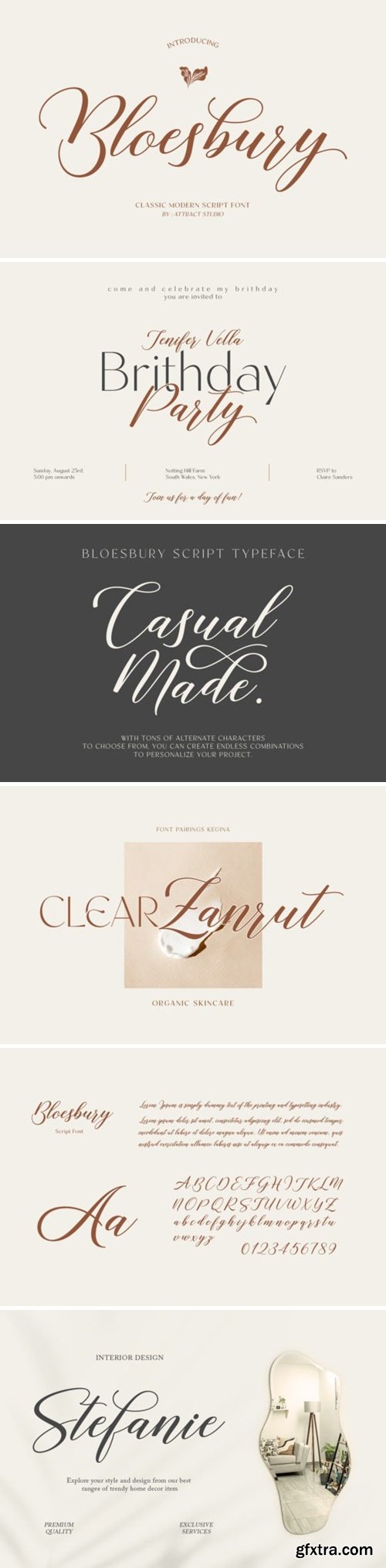
Bloesbury Font
Introducing “Bloesbury”, a stunning and sophisticated handwritten font that adds a touch of elegance to any project. With its delicate curves and fluid strokes, this font is perfect for invitations, wedding stationery, and branding. Its unique style and graceful design create a sense of luxury and refinement. It is also PUA encoded which means you can access all of the glyphs and swashes with ease!